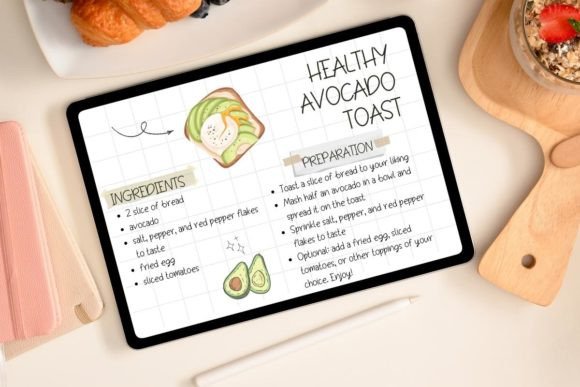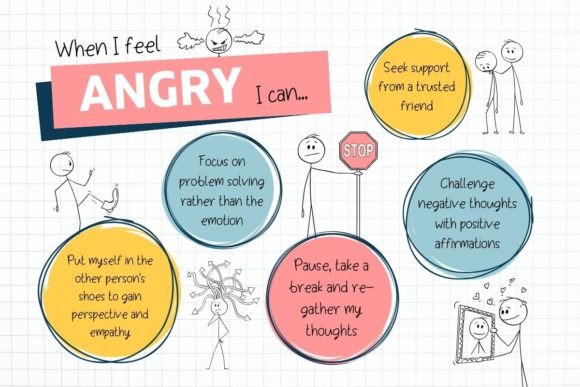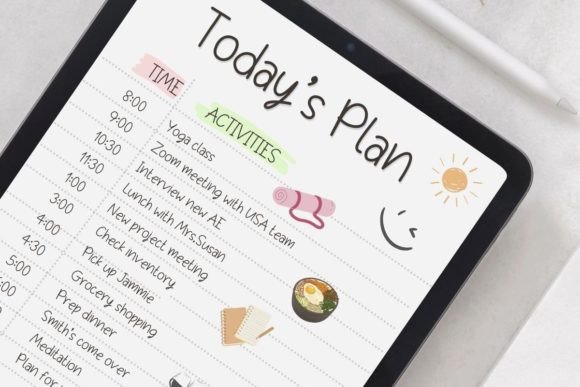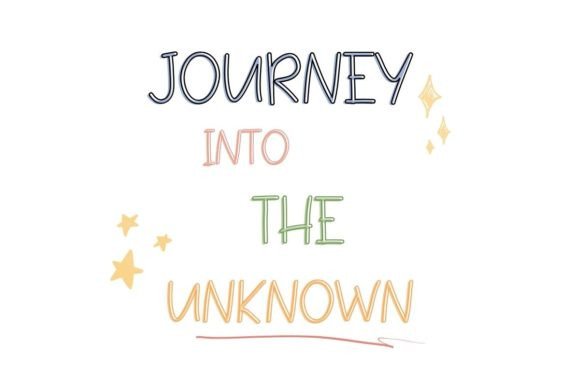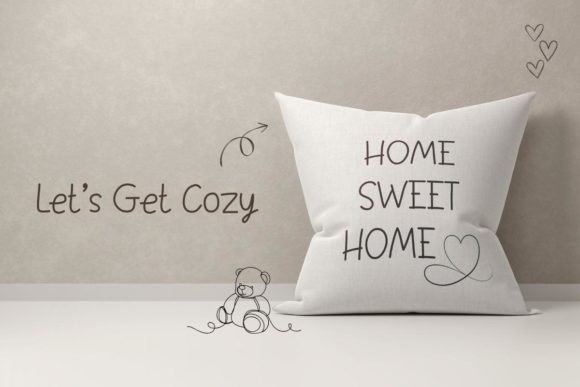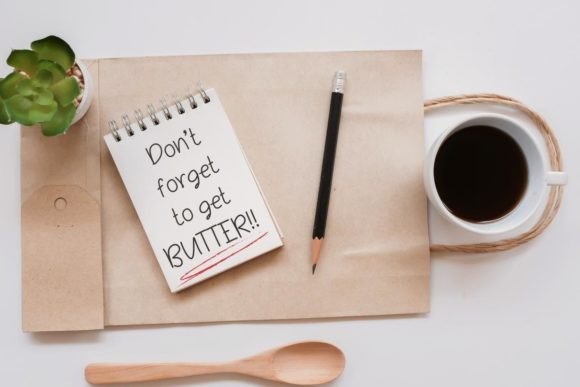
Brown Bear Font: A Playful Handwritten Sans Serif for Creative Designs
Are you looking for a font that can add a touch of playfulness and whimsy to your designs? Look no further than the Brown Bear Font. This delightful handwritten sans serif font is perfect for a wide range of creative projects, from business cards and logos to signs, crafts, and more.
What is Brown Bear Font?
Brown Bear Font is a unique and charming font that is sure to capture the attention of your audience. Its playful and handwritten style gives it a friendly and approachable feel, making it perfect for designers and crafters who want to add a personal touch to their work.
Key Features of Brown Bear Font
- Handwritten sans serif font: Brown Bear Font features a beautiful handwritten style with a sans serif design, making it easy to read and perfect for a wide range of applications.
- Playful and whimsical: The font’s playful and whimsical style makes it perfect for designs that require a touch of personality and fun.
- Highly versatile: Brown Bear Font can be easily adapted to a range of designs, from business cards and logos to signs, crafts, and more.
- Easily readable: The font is designed to be easily readable, making it perfect for use in a variety of contexts, from digital designs to print materials.
Use Cases for Brown Bear Font
Brown Bear Font is a highly versatile font that can be used in a wide range of creative projects, including:
- Business cards: Add a touch of personality to your business cards with Brown Bear Font, making them stand out from the crowd.
- Logos: Create a unique and memorable logo for your brand using Brown Bear Font.
- Signs: Use Brown Bear Font to create eye-catching signs that grab the attention of your audience.
- Crafts: Add a personal touch to your crafts, such as handmade jewelry, decorations, and more.
- Invitation wedding: Make your wedding invitations truly special with Brown Bear Font.
- T-shirts: Create custom t-shirts with Brown Bear Font for a unique and stylish look.
Why Choose Brown Bear Font?
There are many reasons why Brown Bear Font is a great choice for designers and crafters, including:
- Unique and playful style: Brown Bear Font offers a unique and playful style that can add a touch of personality to your designs.
- Easily adaptable: The font is highly versatile and can be easily adapted to a range of designs and applications.
- Easily readable: Brown Bear Font is designed to be easily readable, making it perfect for use in a variety of contexts.
- High-quality design: The font is designed to high-quality standards, ensuring that it looks great in any design.
| Font Name | Brown Bear Font |
| Author | chiraa.design |
In conclusion, Brown Bear Font is a playful handwritten sans serif font that is perfect for designers and crafters who want to add a touch of personality to their work. Its highly versatile design makes it suitable for a wide range of creative projects, from business cards and logos to signs, crafts, and more. With its unique and playful style, easily adaptable design, and high-quality construction, Brown Bear Font is a great choice for anyone looking to add a touch of whimsy to their designs.